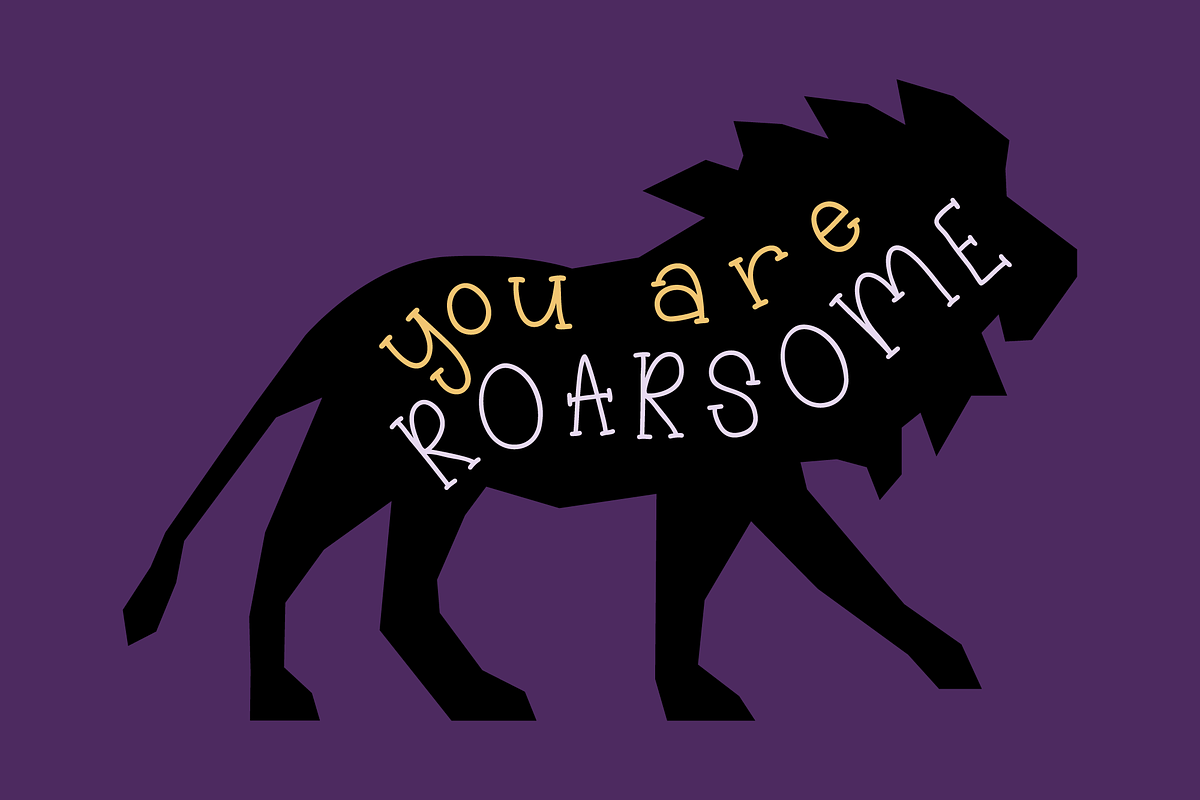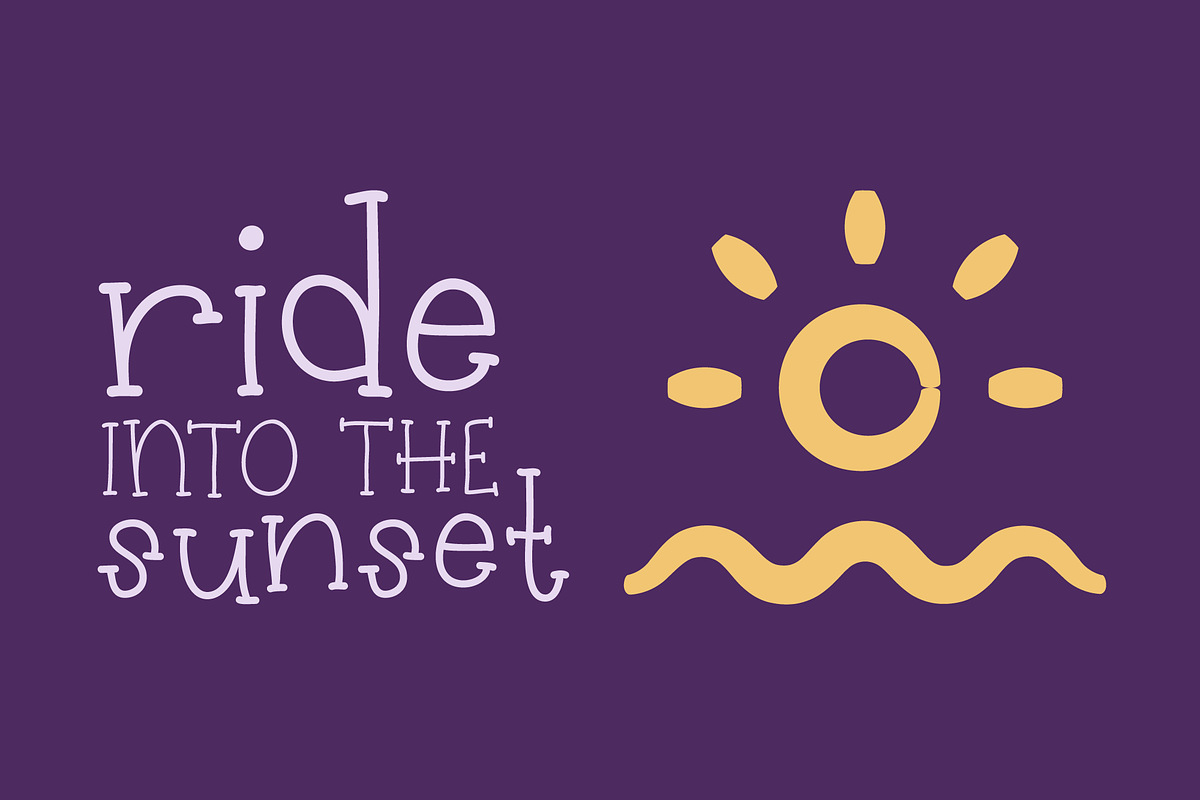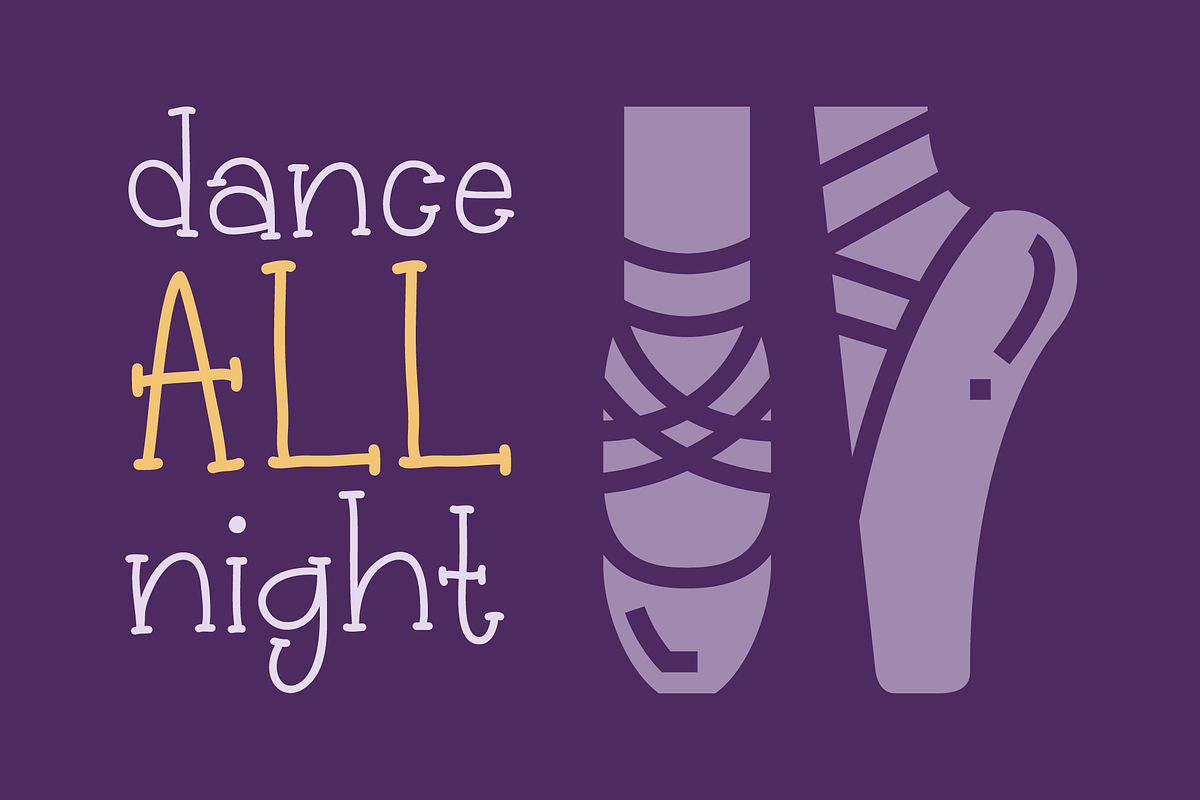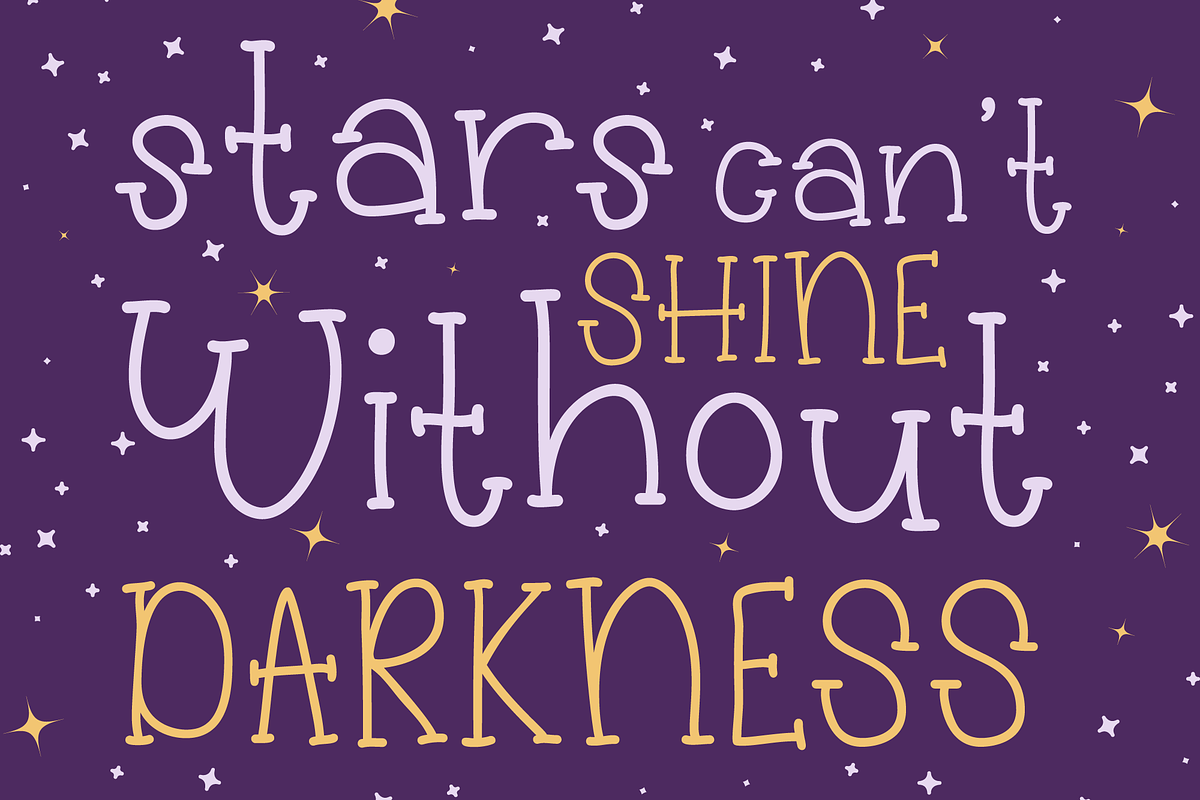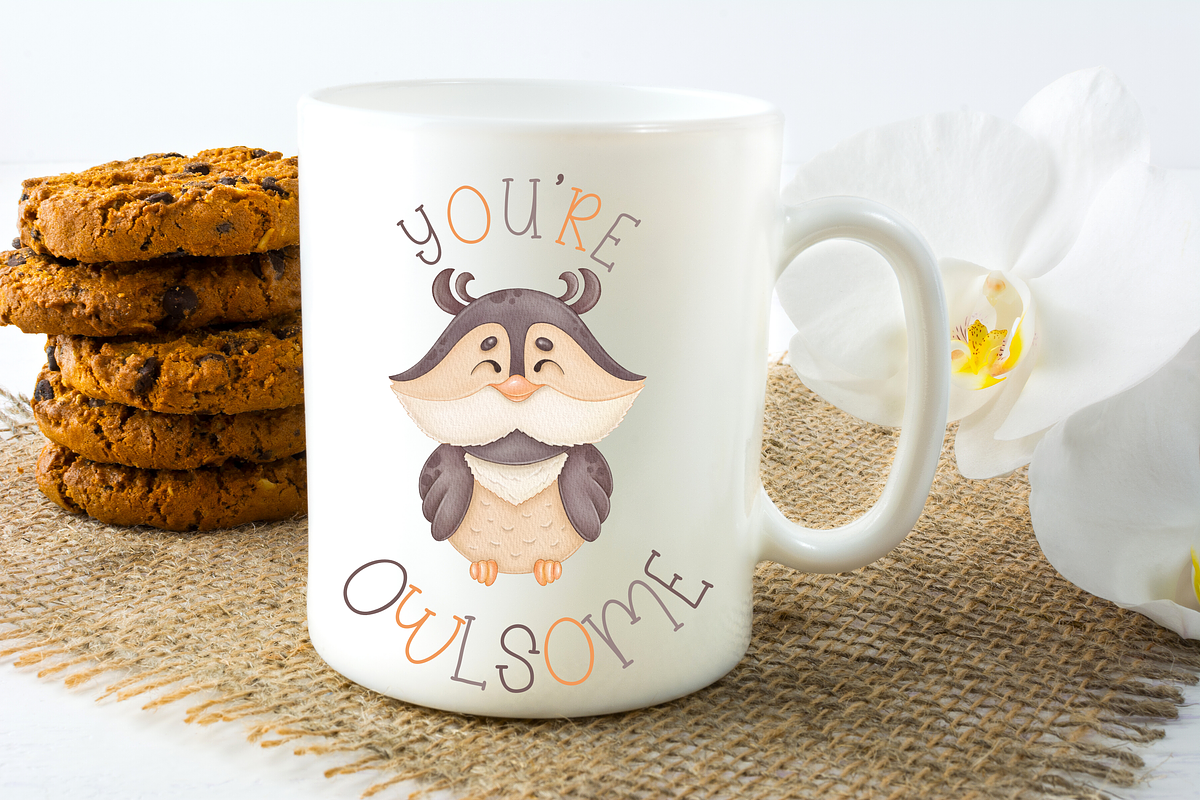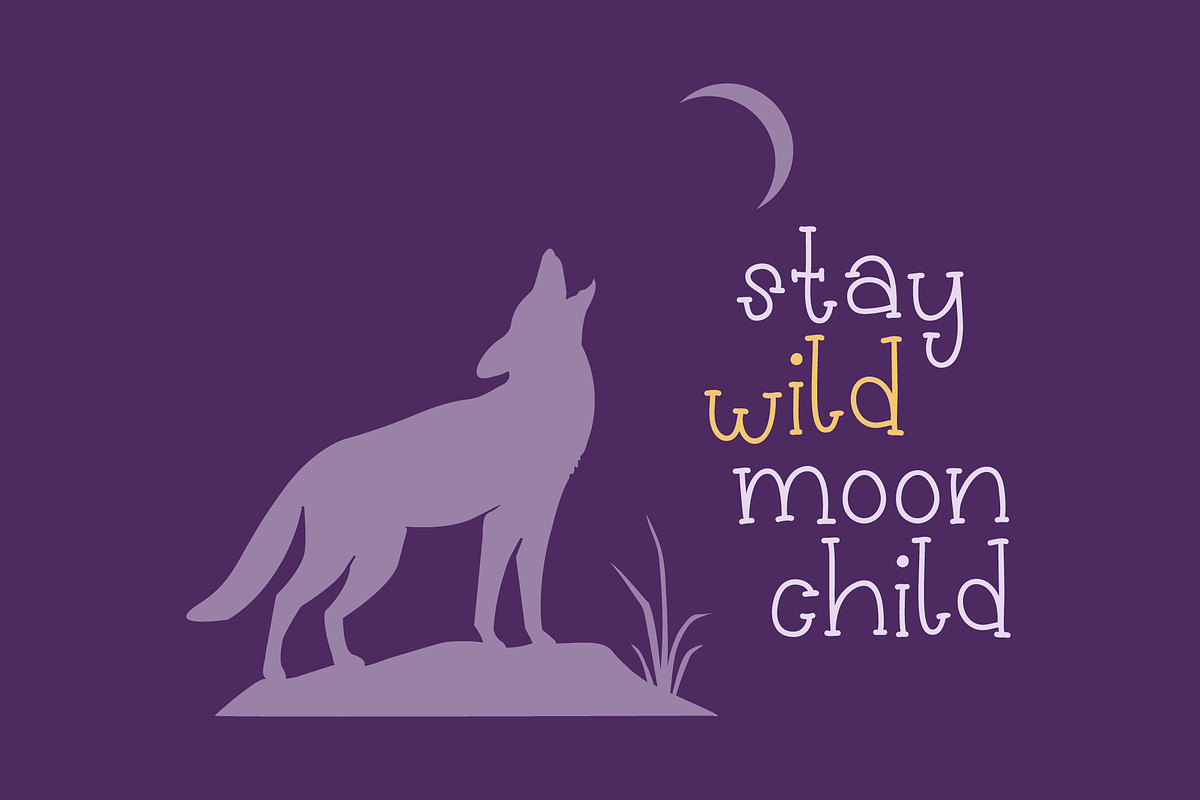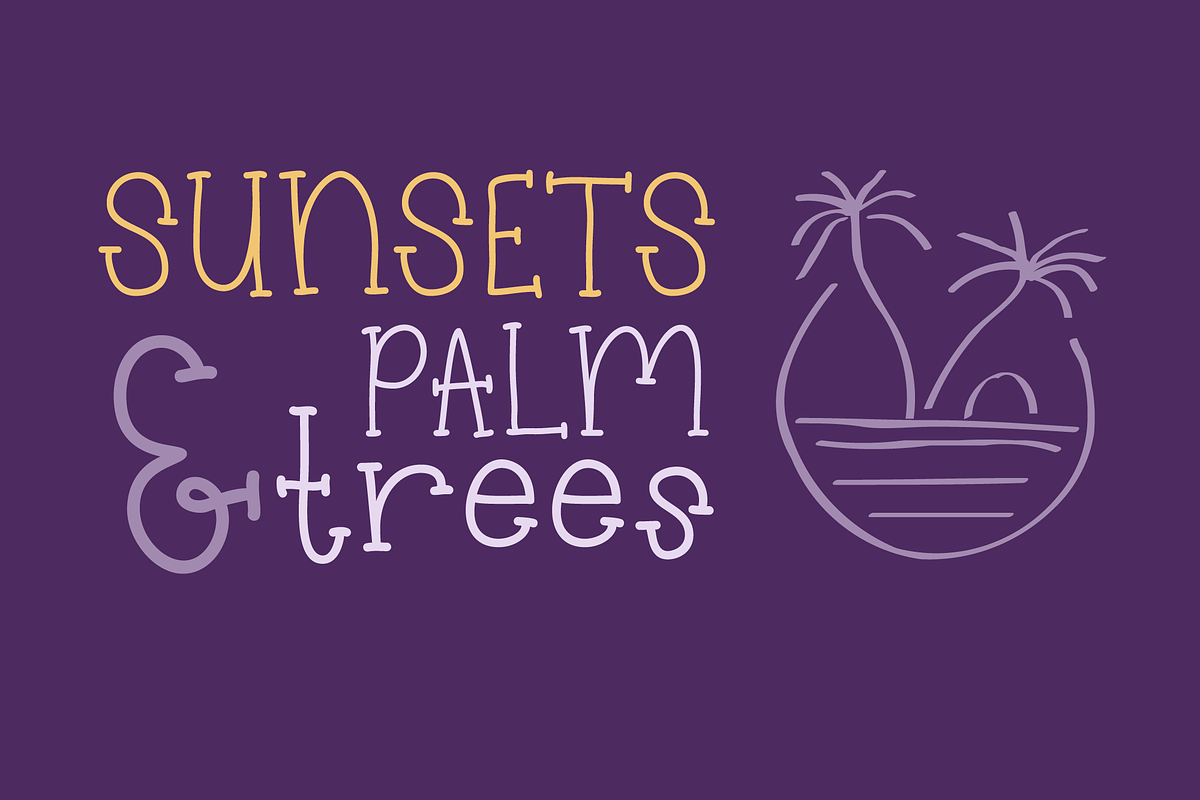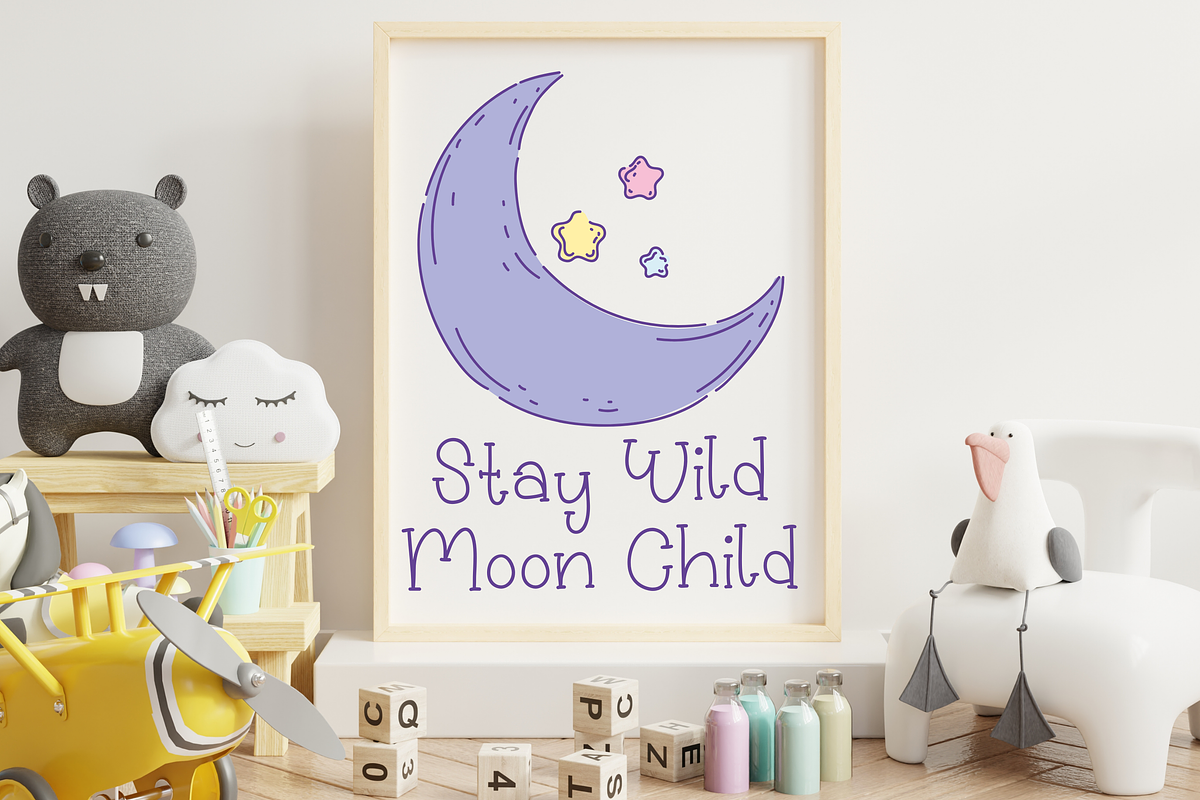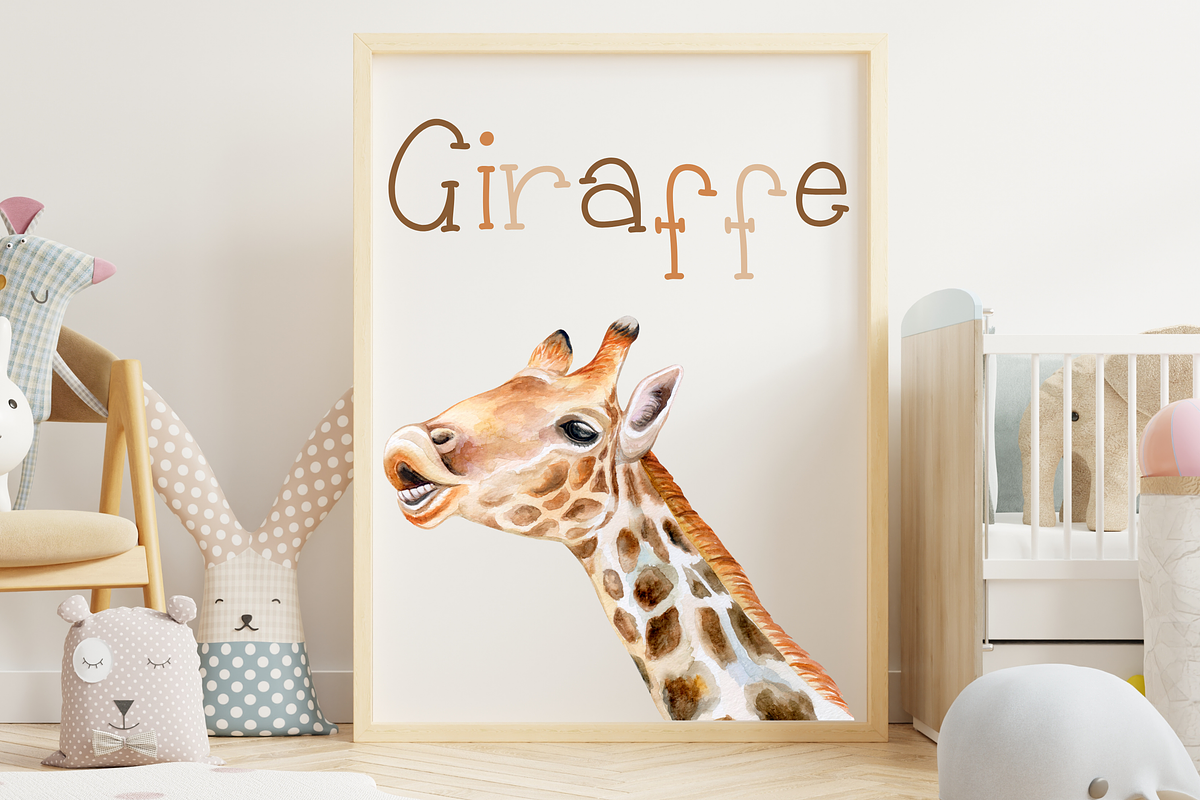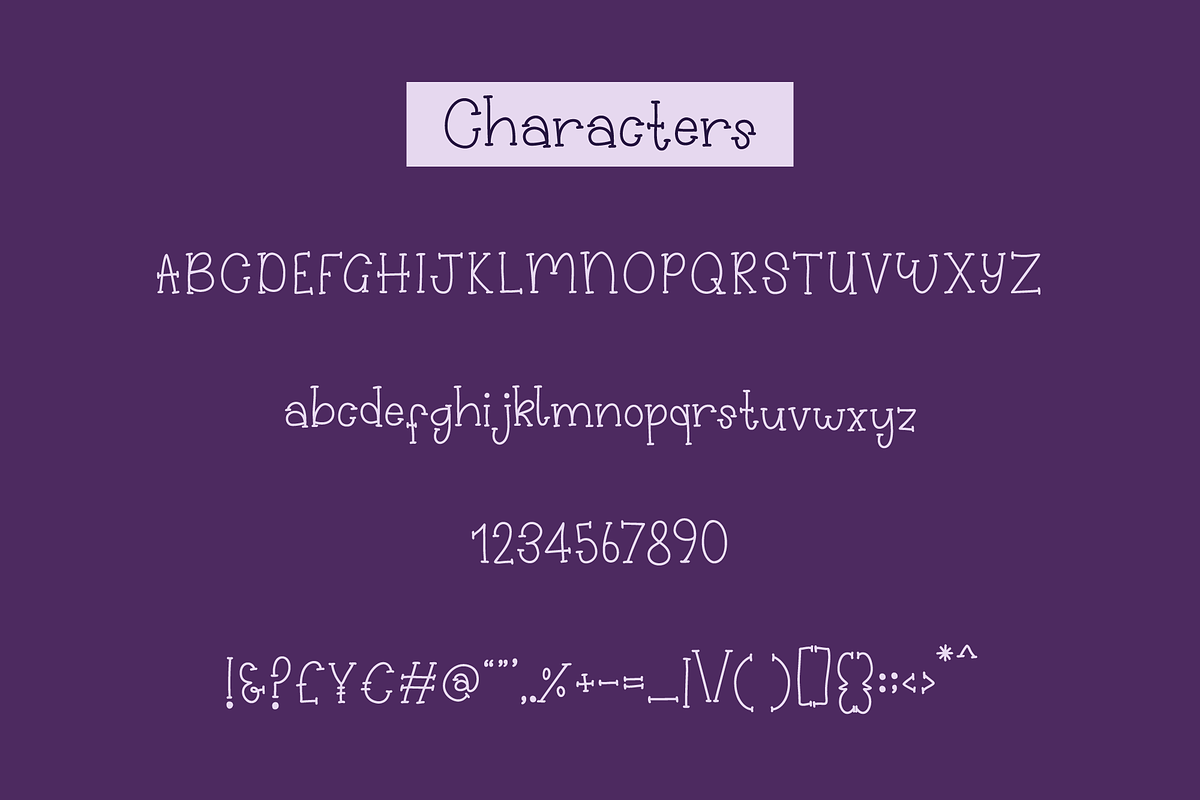
Wild Twilight Cute Typewriter Font
Introducing Wild Twilight, a hand lettered opentype font. Wild Twilight is a serif font with fun & whimsical vibes. Combining classic style with modern lettering this font is perfect for a wide range of design styles and applications such as logo design, wedding invitations, business branding, & web design.